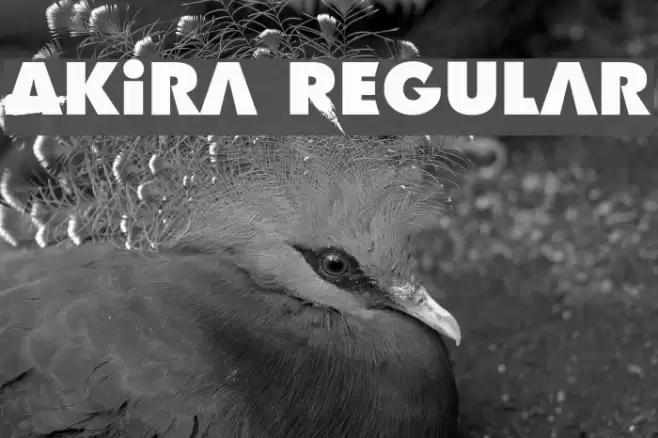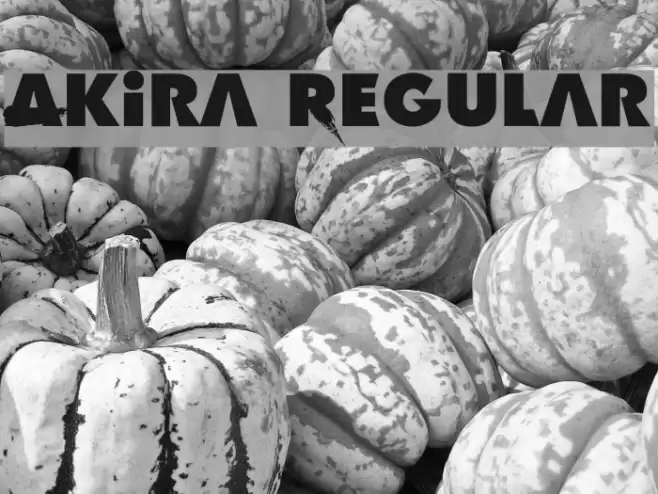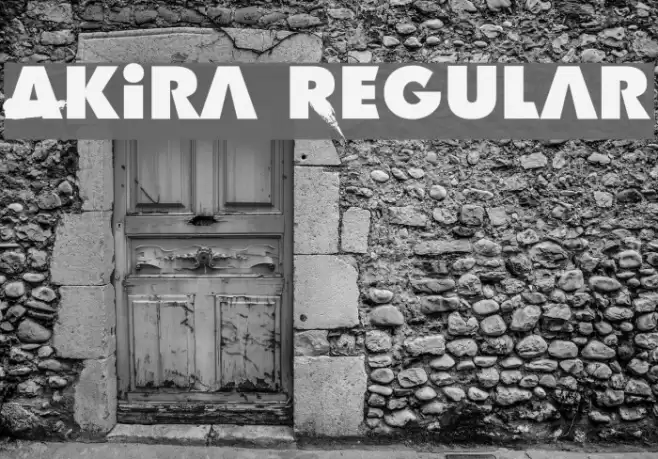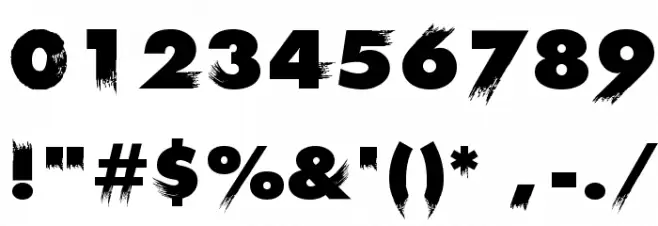
Akira Regular Font
Akira Regular Description
This font features a bold and dynamic style with a distressed, grunge-like texture that gives it a rugged and edgy appearance. The characters are thick and heavy, with sharp, angular edges and a slightly irregular form that adds to its unique aesthetic. The uppercase and lowercase letters maintain a consistent weight, while the numerals and special characters follow the same bold and textured design. This font's distinctive look makes it stand out, ideal for projects that require a strong visual impact.
A bold, textured font with a grunge aesthetic and sharp, angular edges.
- Proposed Projects: Ideal for music album covers, movie posters, urban-themed designs, and branding that requires a bold statement.
- Overall Style: Edgy, Grunge, Modern